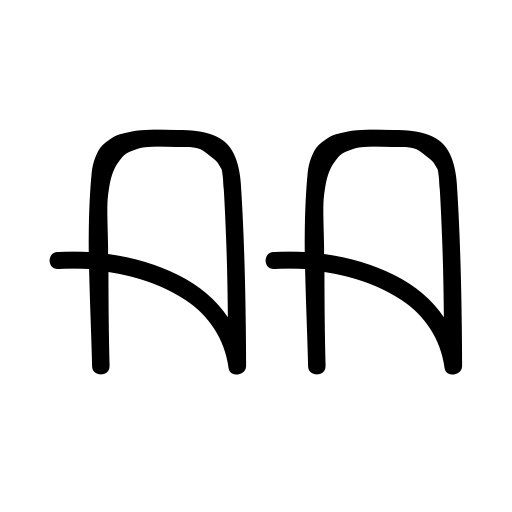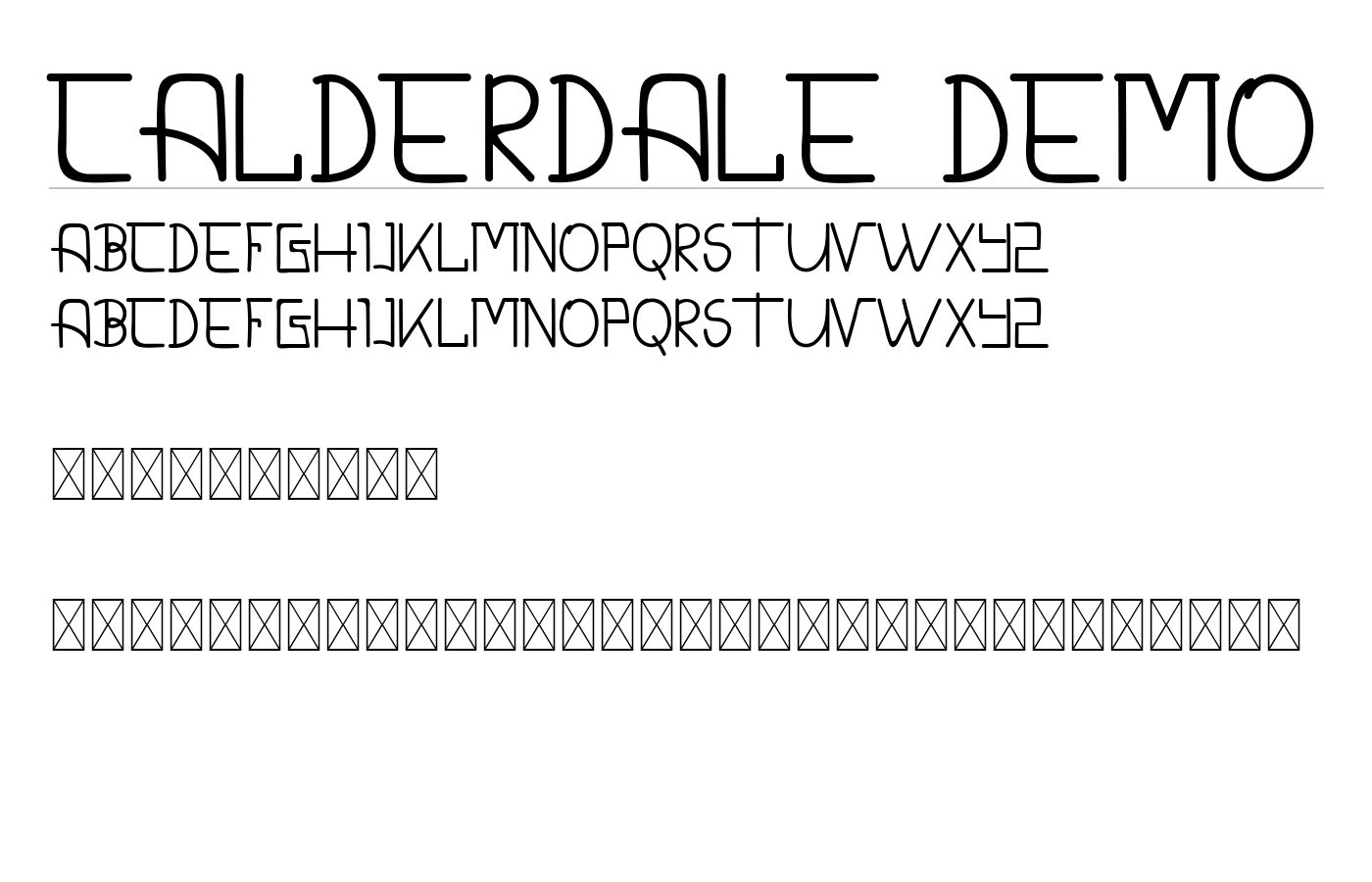
Calderdale Demo is a unique sans serif font characterized by its thin, delicate strokes and narrow letterforms, giving it a light and airy feel. With an unusual, almost whimsical design featuring rounded corners and subtle variations in stroke endings, it conveys a modern yet playful personality, making it ideal for creative projects, logos, and headlines that seek a distinctive, artistic touch. Its clean lines and stylized shapes work well in digital and print formats where a fresh and unconventional look is desired.
CALDERDALE DEMO Font
About CALDERDALE DEMO Font